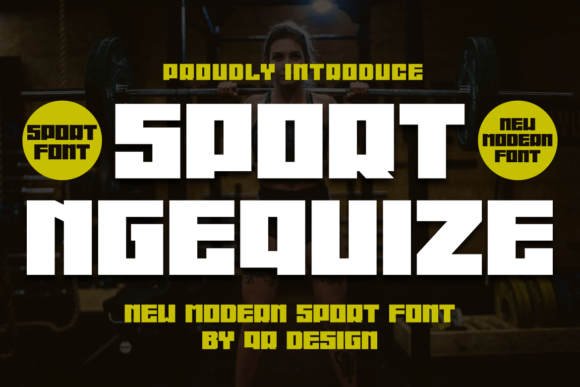
Introducing the Sport Ngequize Font - the ultimate choice for all your gaming adventures! This bold and authentic display font will take your designs to the next level, making them stand out with its unique style and versatility. Created by qrdesignstd, this font is specifically tailored for those who seek the best font for gaming and want to make a lasting impression.
Unleash your creativity with the Sport Ngequize Font and watch your designs come to life. Whether you're working on a logo, t-shirt printing, or any branding project, this font is the perfect companion. Its sans serif style adds a touch of modernity and sophistication to your artwork, setting you apart from the rest.
Designed with gamers in mind, the Sport Ngequize Font captures the essence of the gaming world. Its captivating and powerful presence will instantly grab the attention of your audience, immersing them in the virtual realm. Take your gaming experience to new heights with a font that resonates with the excitement and adrenaline of the gaming community.
But the Sport Ngequize Font isn't just limited to gaming. Its versatility knows no bounds, making it suitable for a wide range of contexts. From sports events and competitions to tech-related projects, this font adapts effortlessly, ensuring your message is delivered with impact and clarity.
With its bold and eye-catching design, the Sport Ngequize Font evokes emotions of strength, determination, and adventure. It injects energy into your designs, empowering you to captivate your audience and leave a lasting impression. Stand out from the crowd and make a statement with a font that speaks volumes.